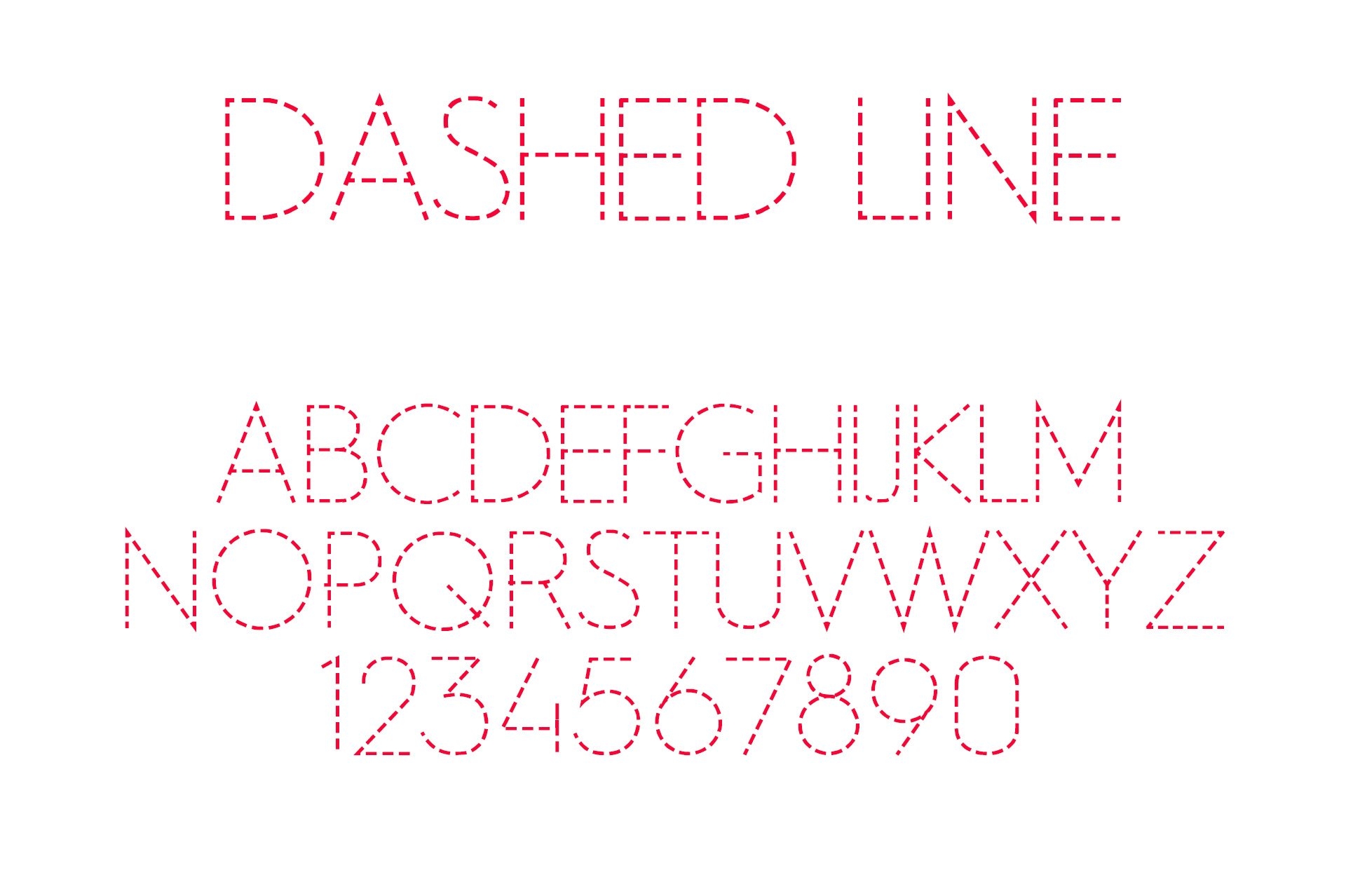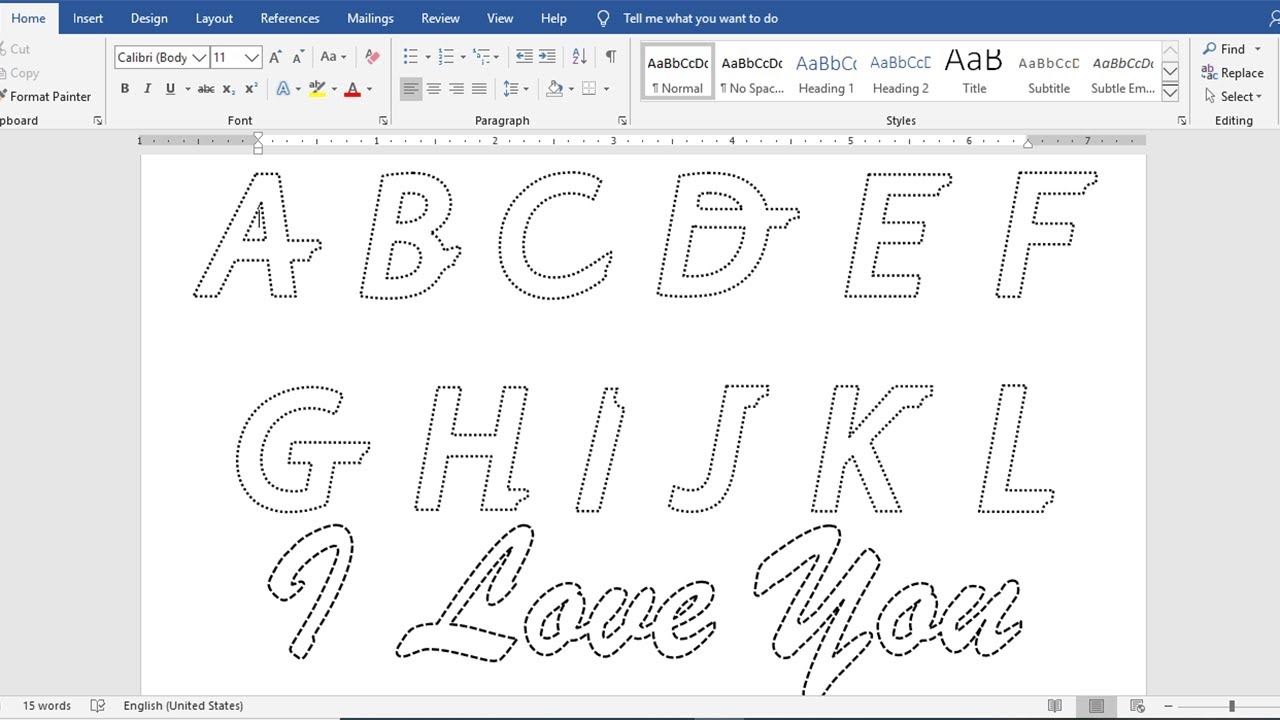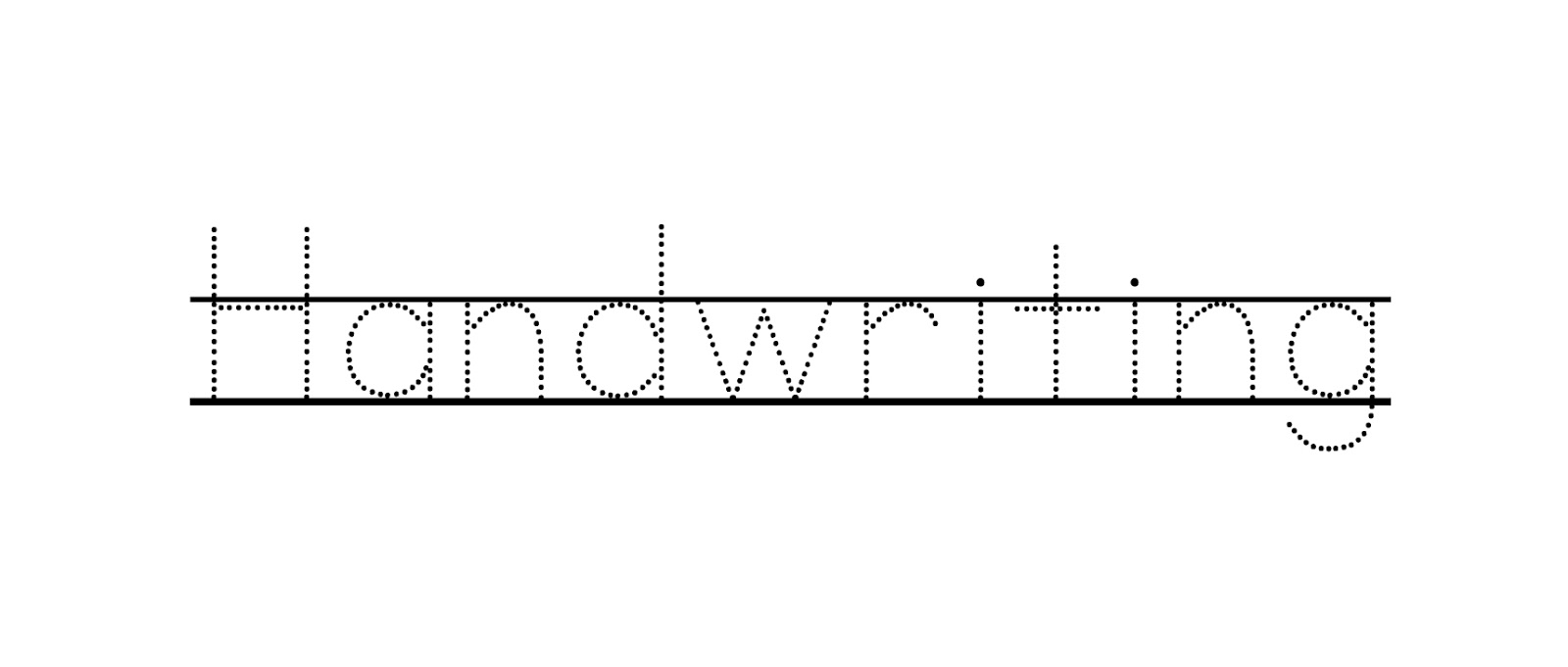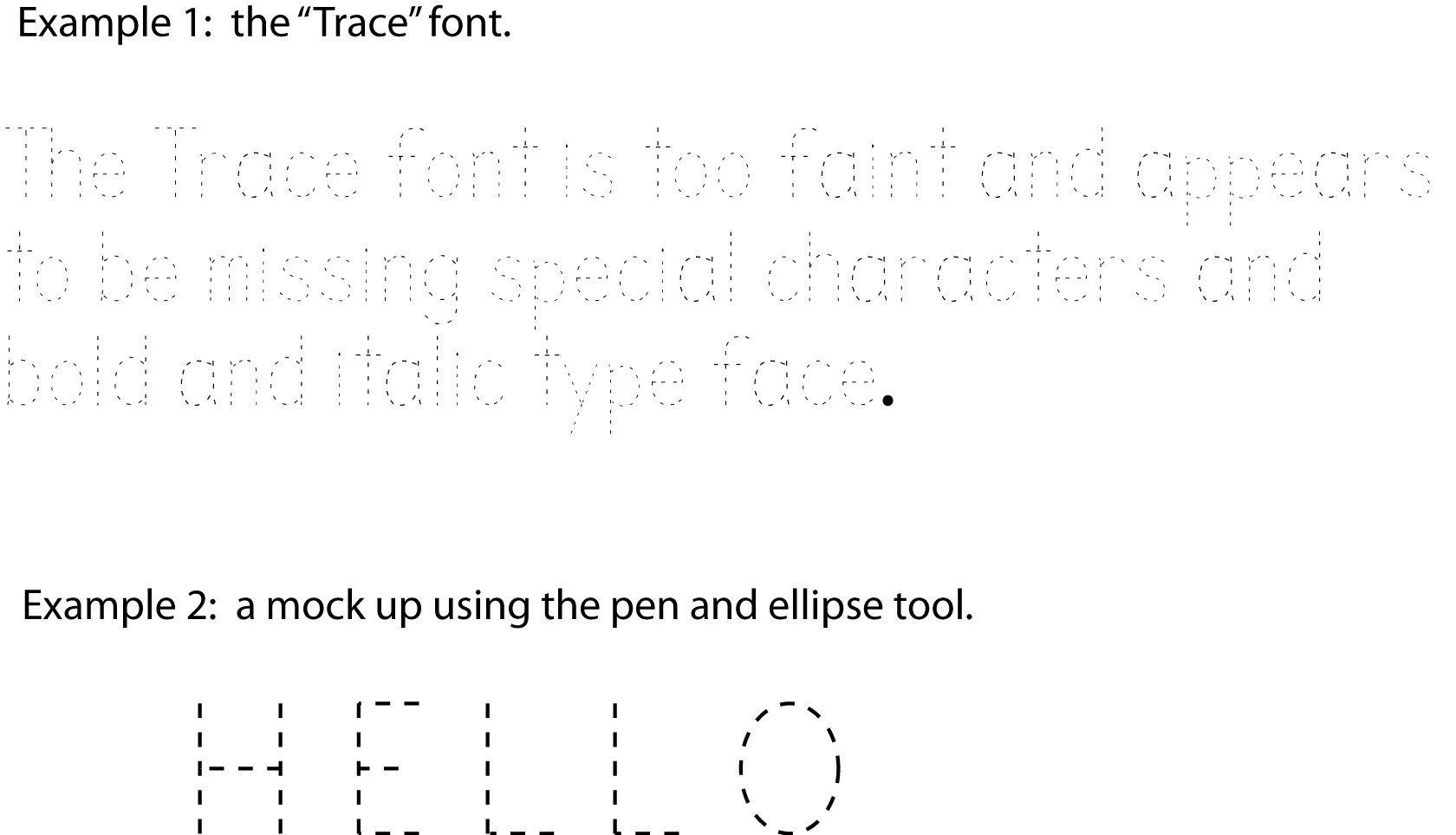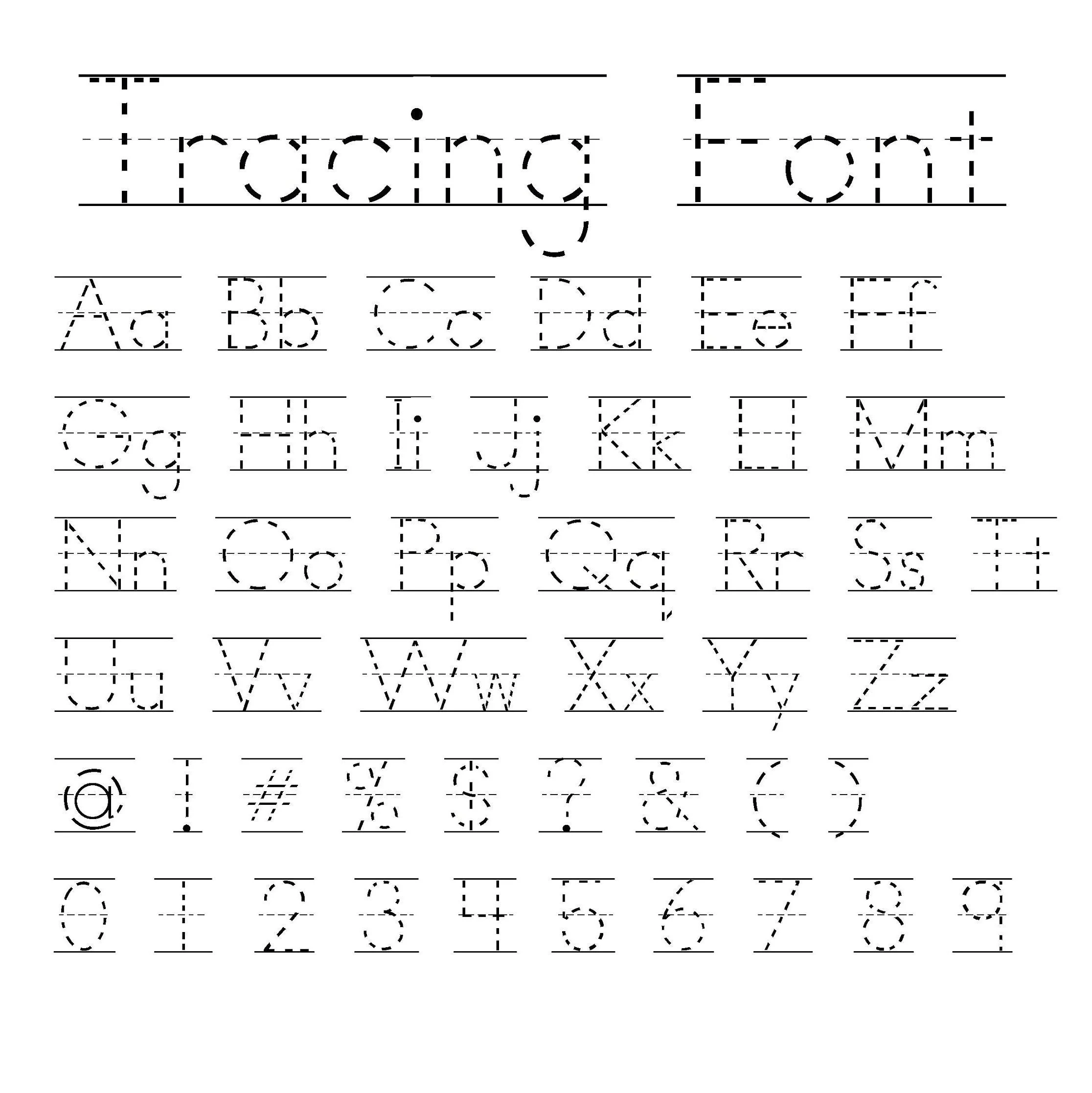
Dashed Line Font For Tracing
Finding creative ways to enhance your child’s learning experience can be both fun and rewarding. One effective method is using a dashed line font for tracing, which helps kids develop their writing skills while enjoying the process.
A dashed line font for tracing is specifically designed to guide young learners. These fonts provide a visual aid that encourages children to practice their handwriting without feeling overwhelmed by solid lines.
Many educational resources offer printable worksheets featuring dashed line fonts. These worksheets can be tailored to different skill levels, ensuring that every child can benefit from this engaging learning tool.
Incorporating a dashed line font into your child’s routine can make writing practice enjoyable. As they trace letters and words, they gain confidence in their abilities, fostering a positive attitude towards learning.
Encouraging your child to use a dashed line font for tracing can lead to improved handwriting skills and greater enthusiasm for writing. It’s a simple yet effective way to support their educational journey.